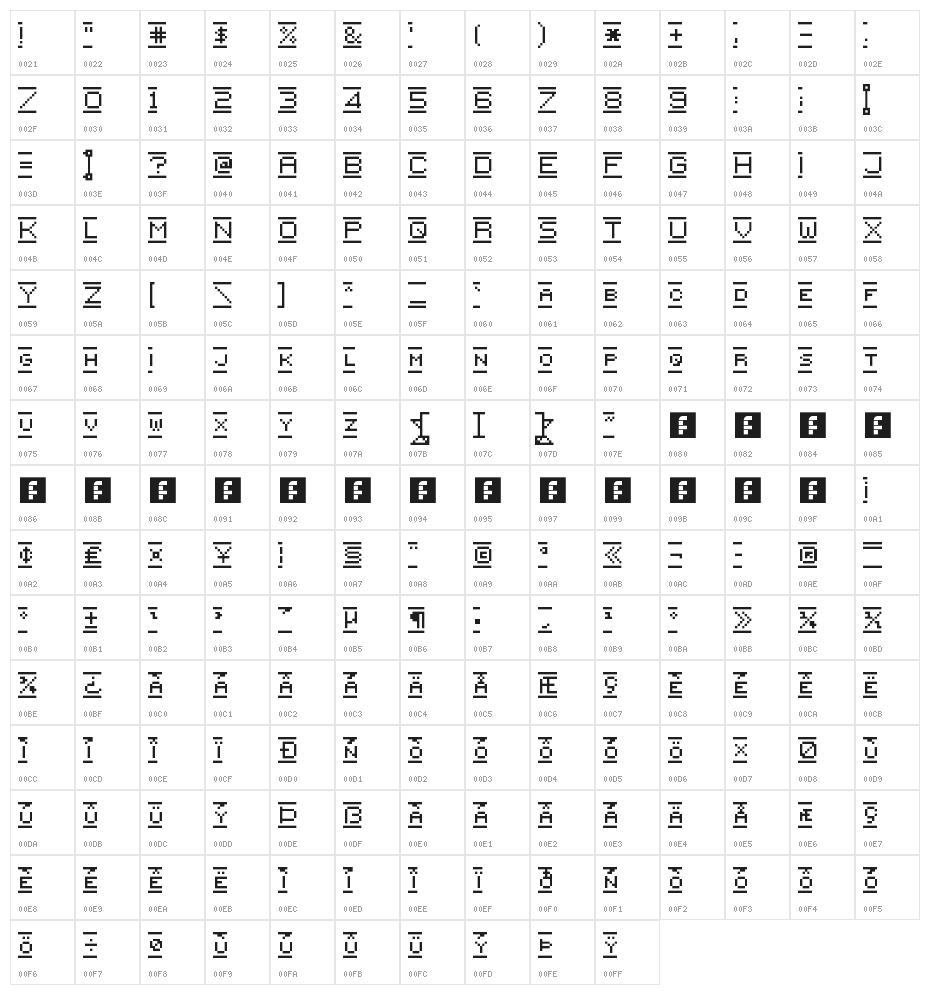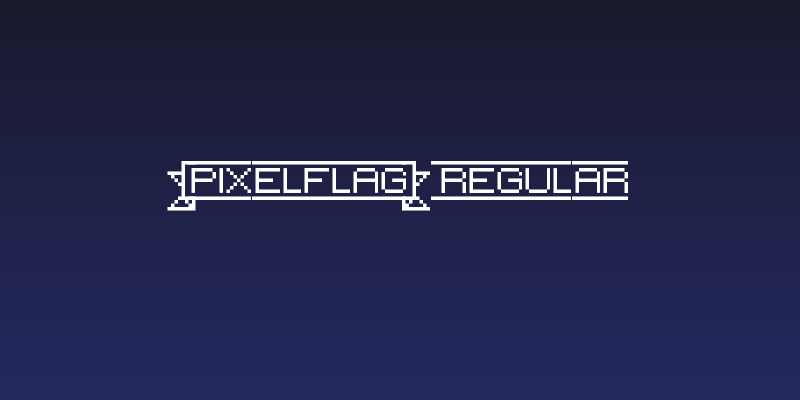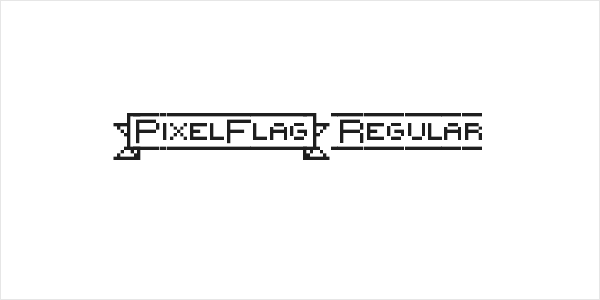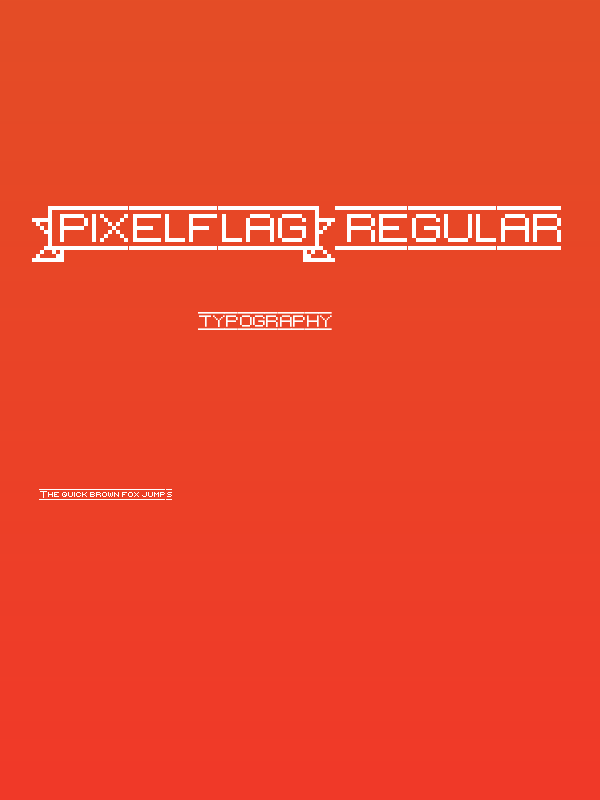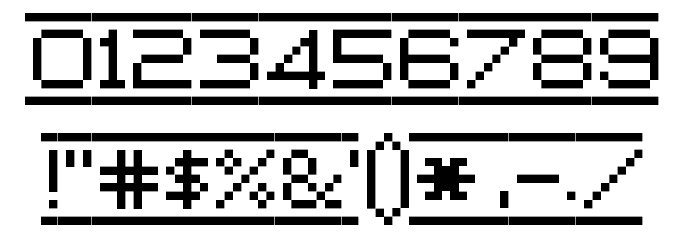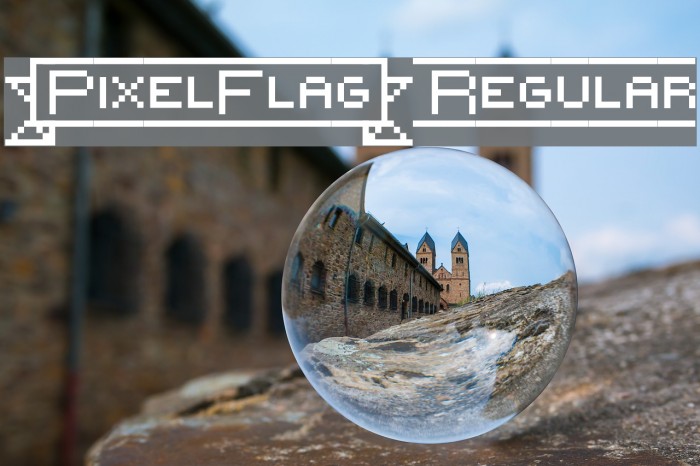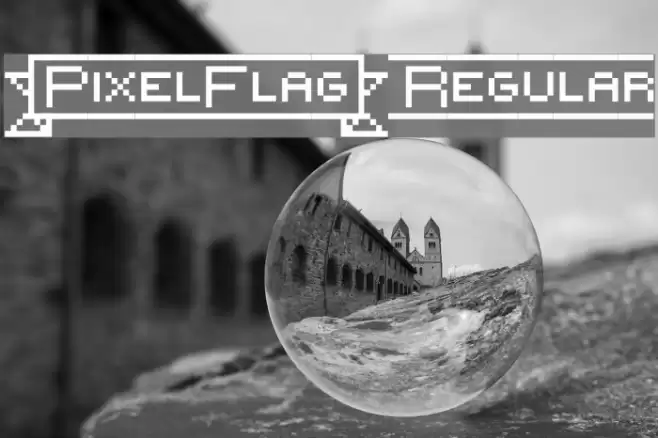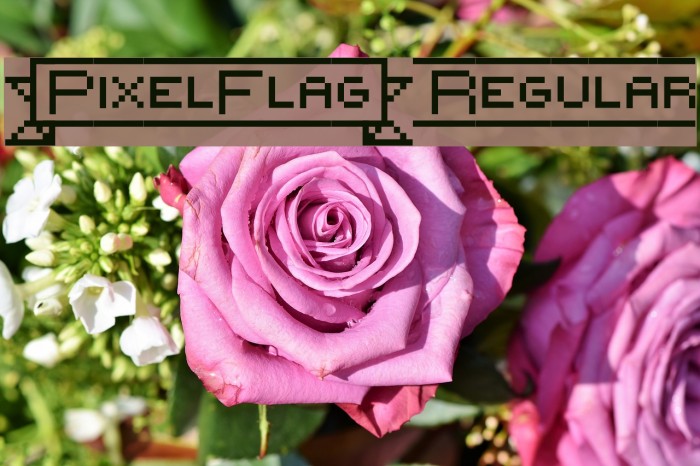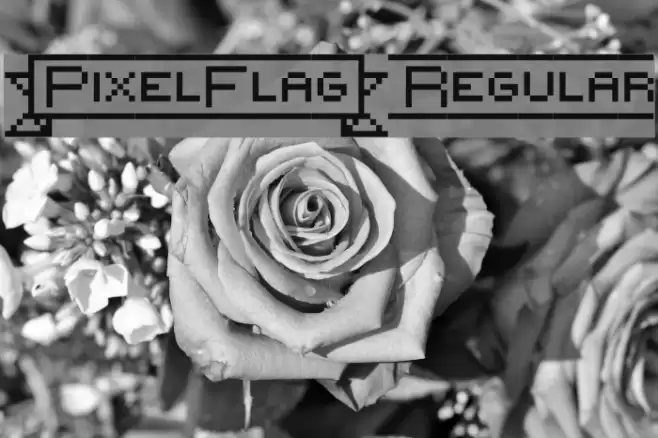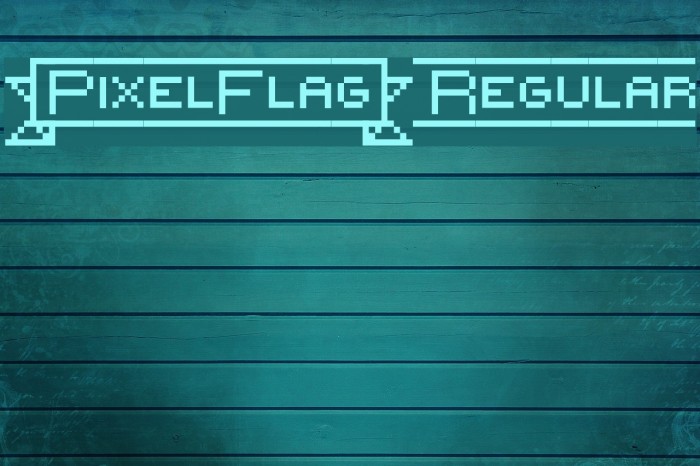
{PixelFlag} Regular Font
| Cas d'utilisation | Logos, Headlines, Digital displays |
| Projets proposés | Ideal for retro video game graphics, digital art projects, tech-themed posters, and any design requiring a vintage digital aesthetic. |